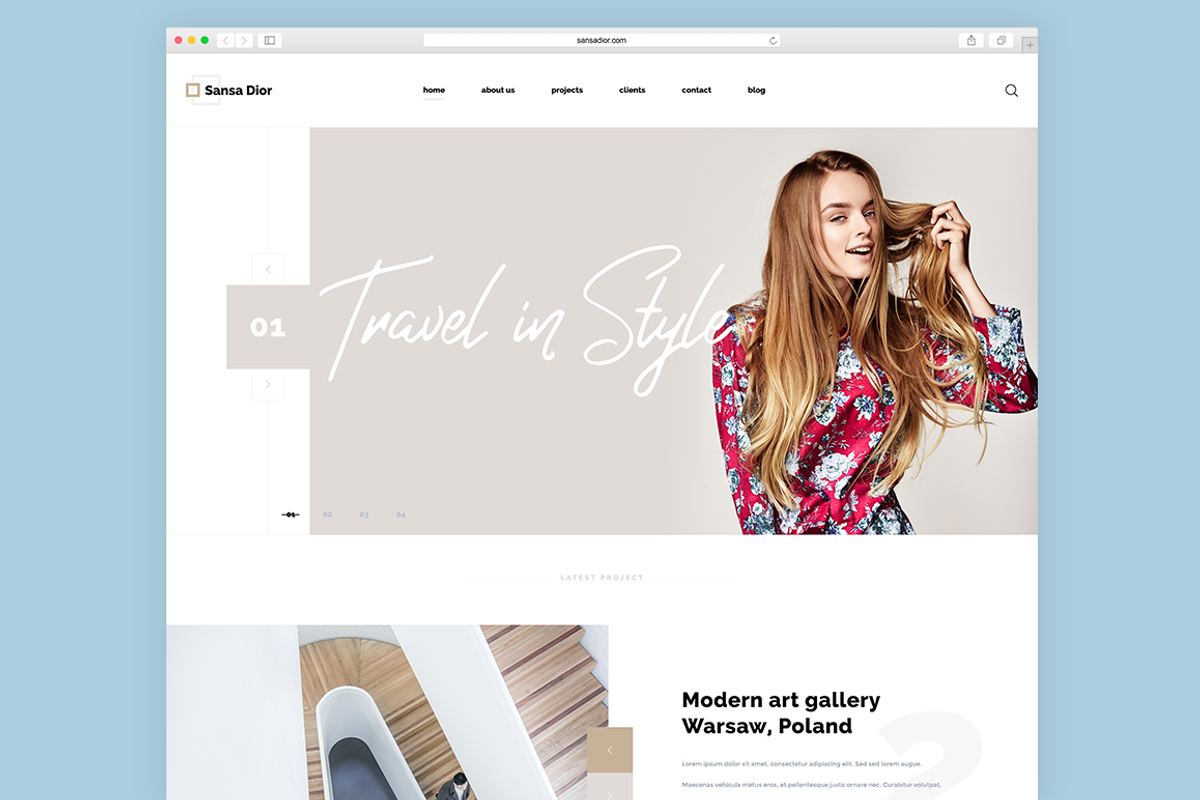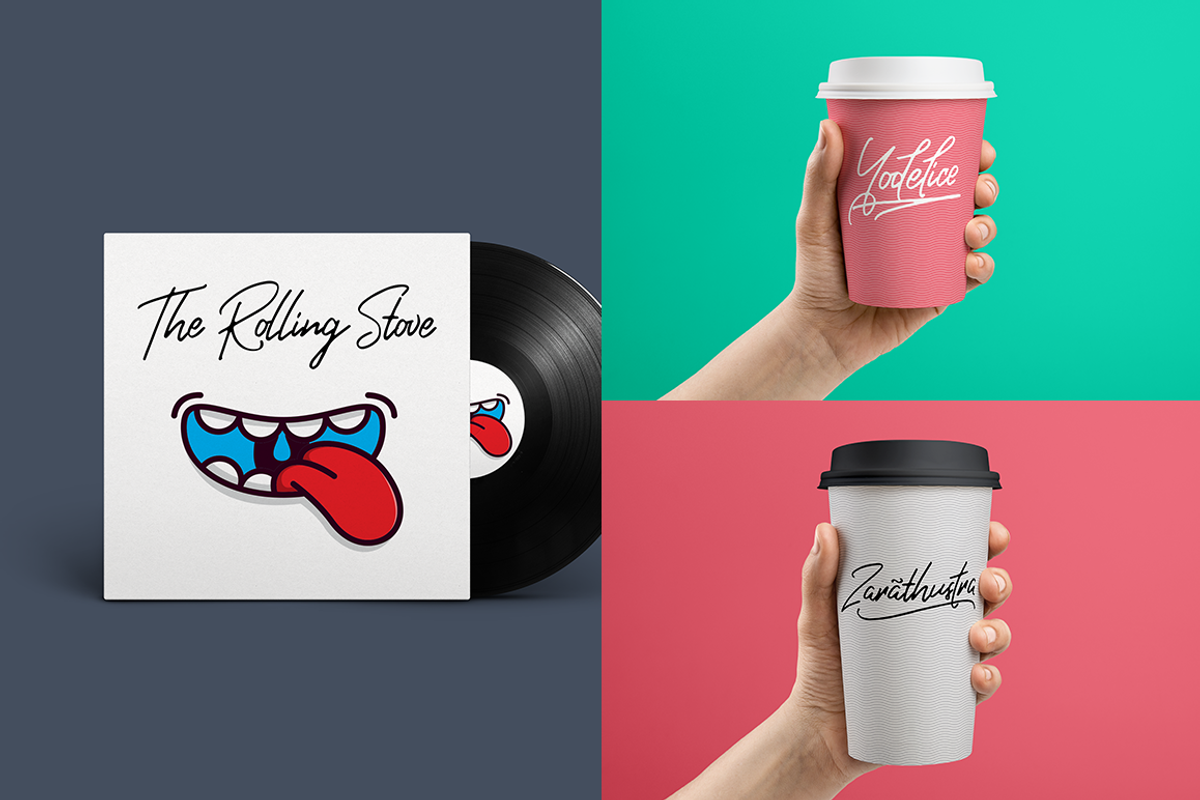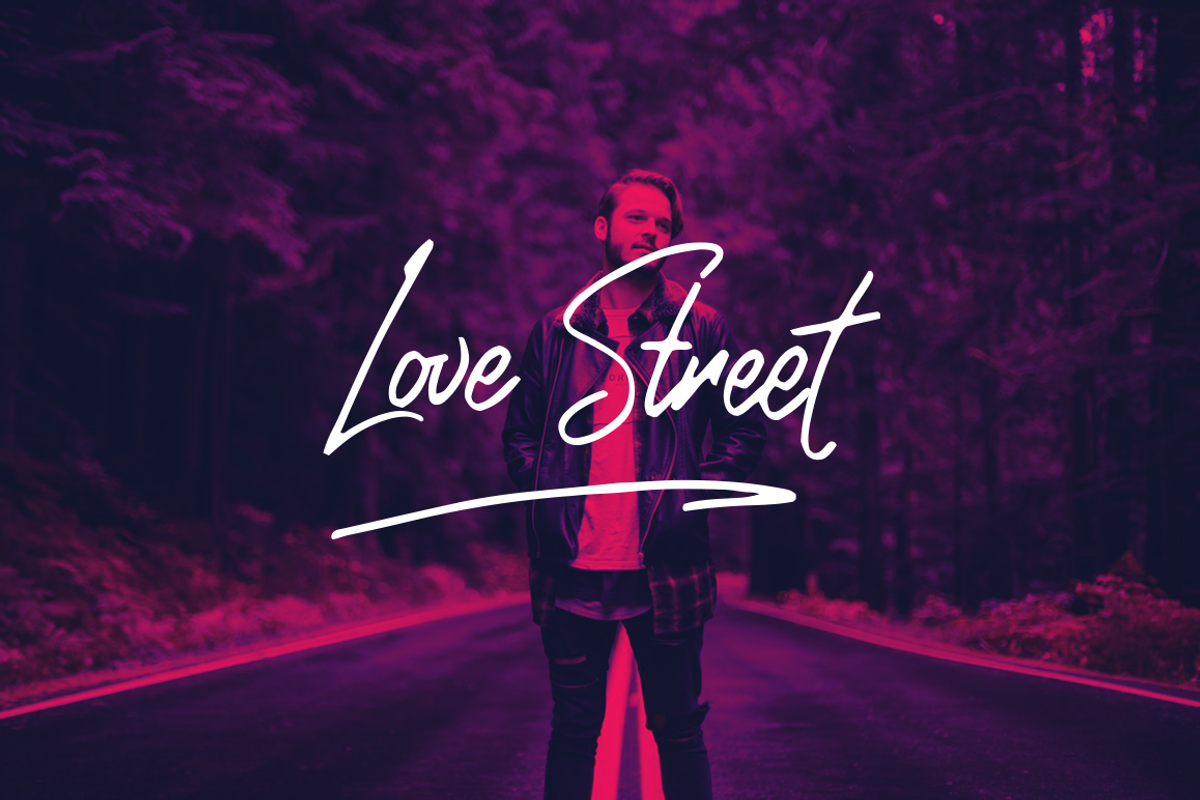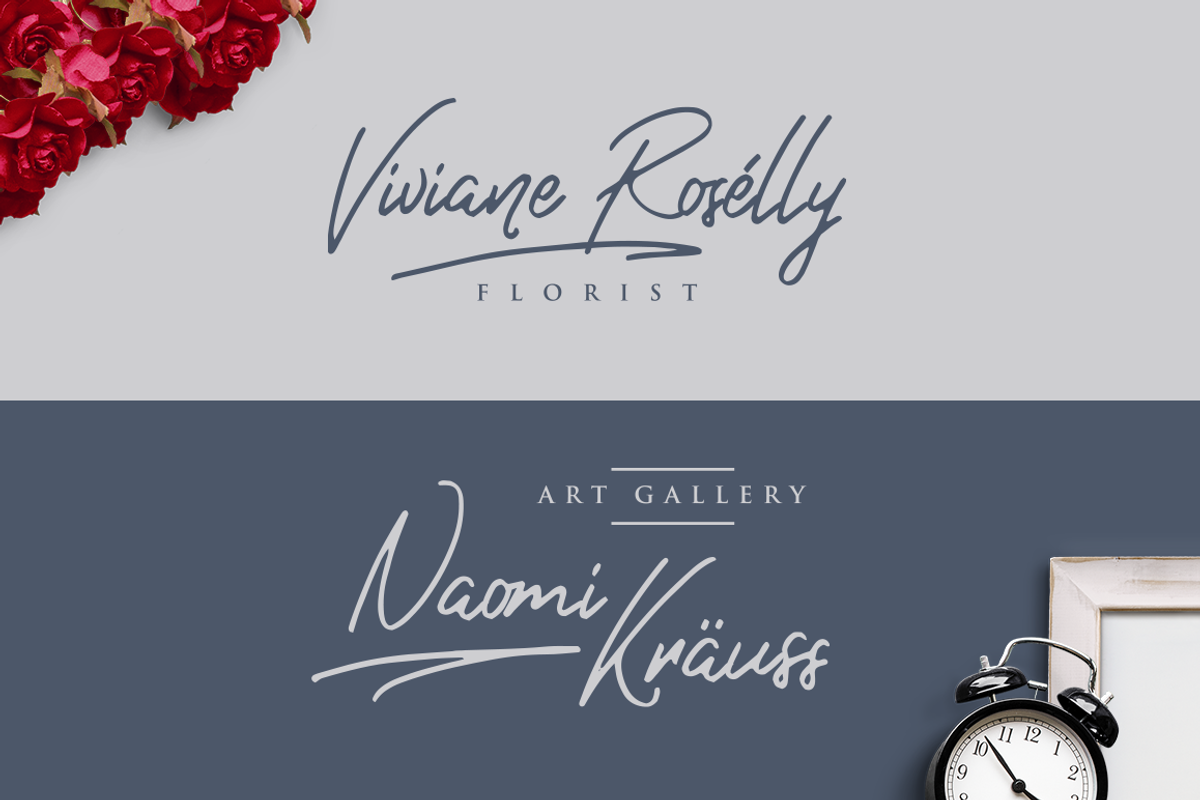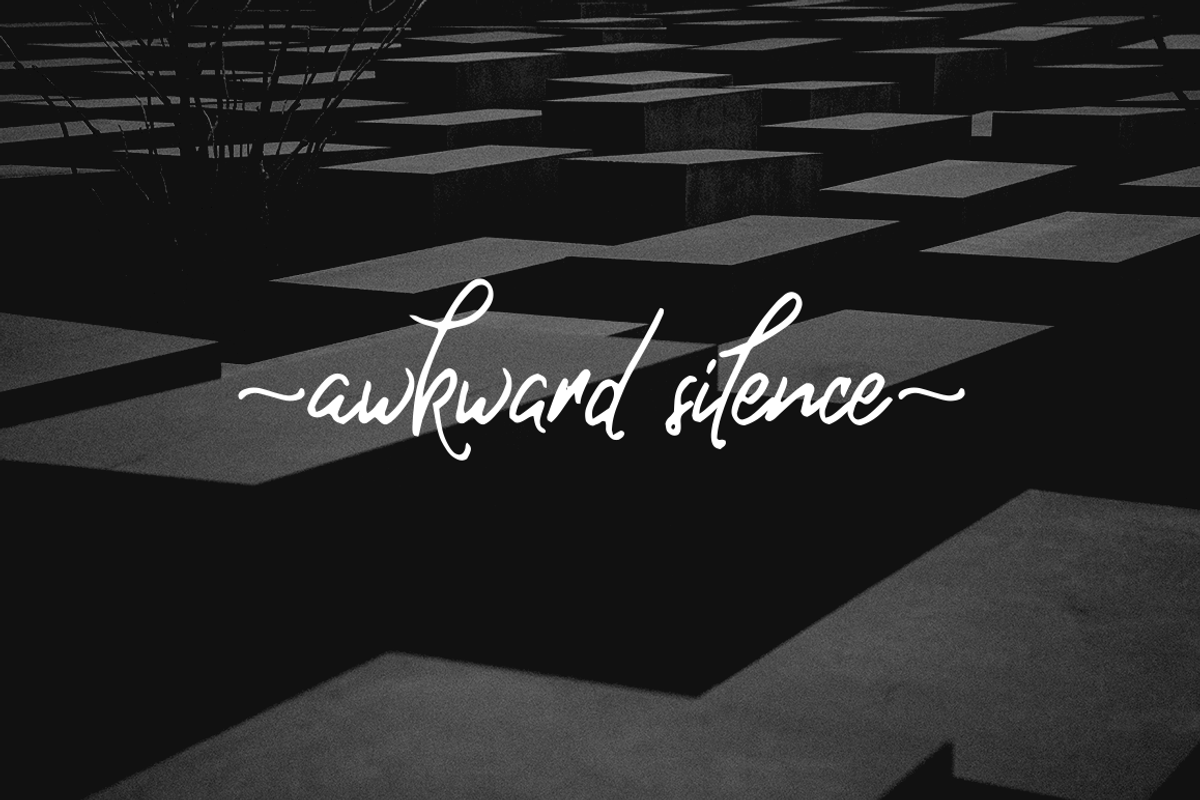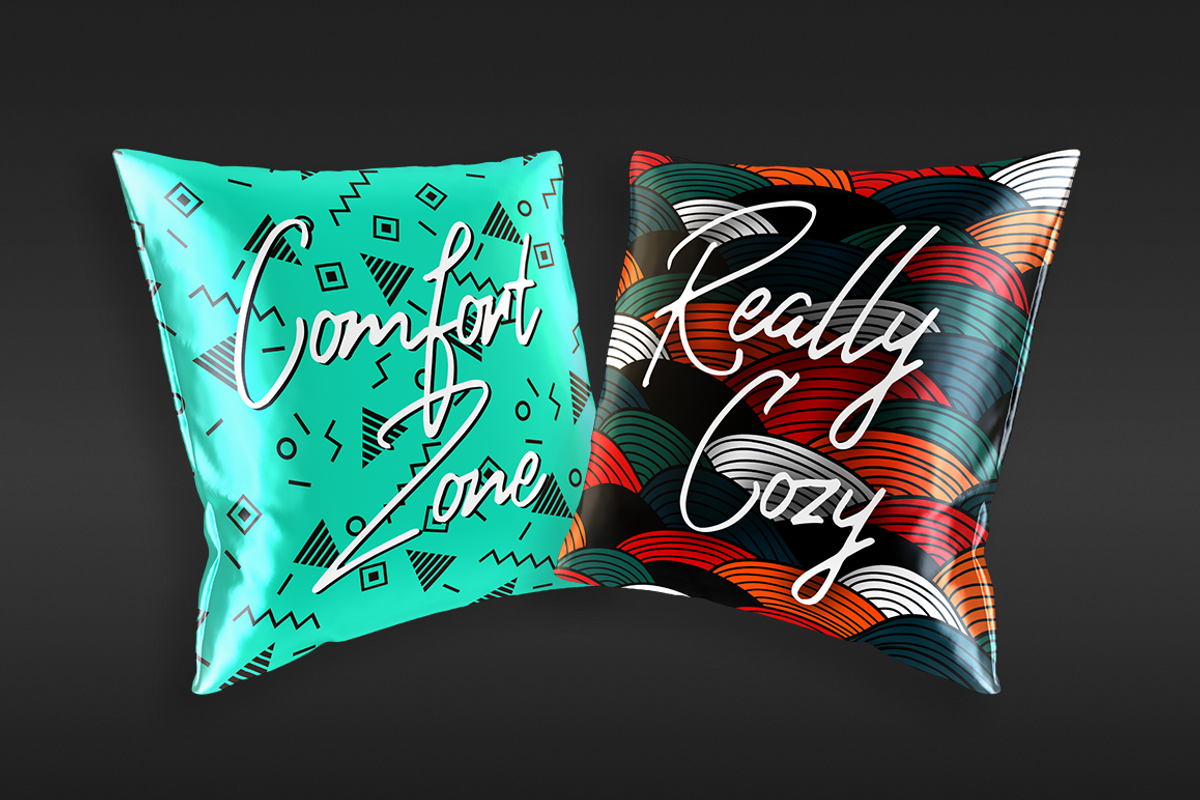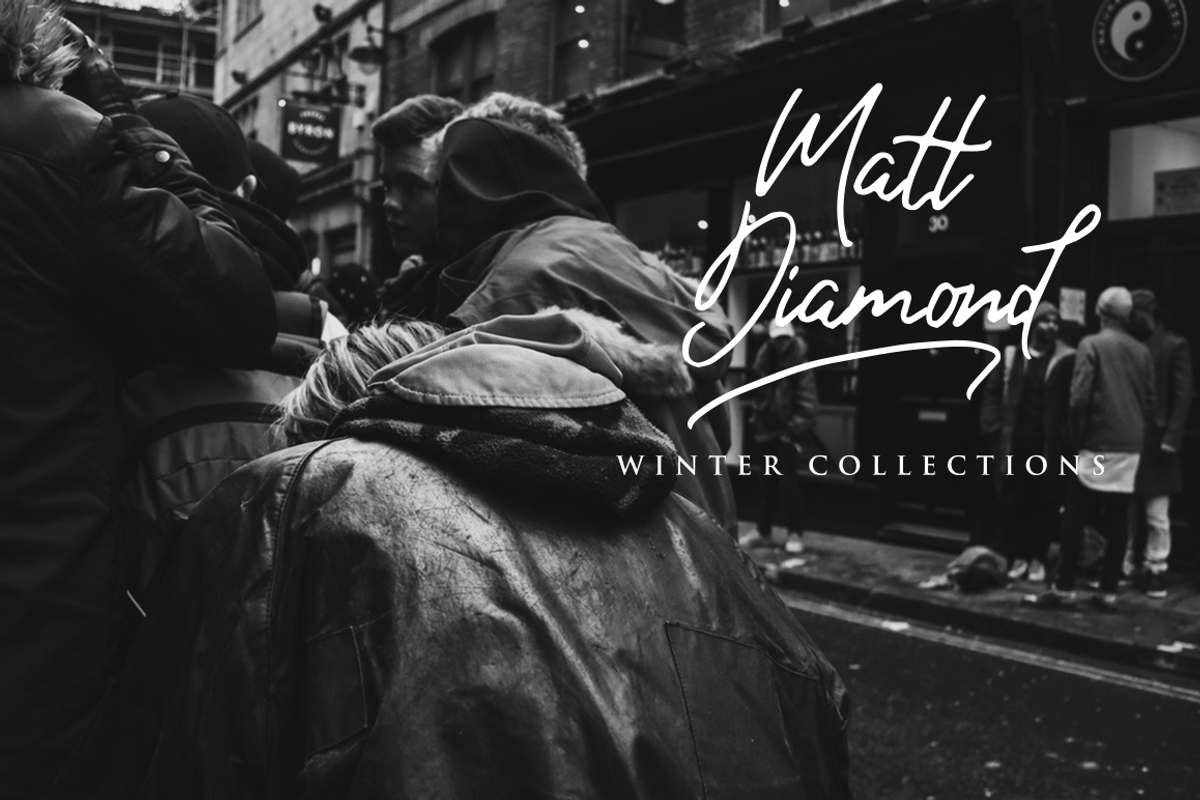
Sansa Dior Font
Sansa Dior Font by Hindia Studio is a font selected for branding, posters, packaging, typography.
- Uppercase/Lowercase
- Stylistic alternates
- Swashes (num. 1-7)
Sansa Dior Font by Hindia Studio fits naturally into Branding, posters, packaging, typography.